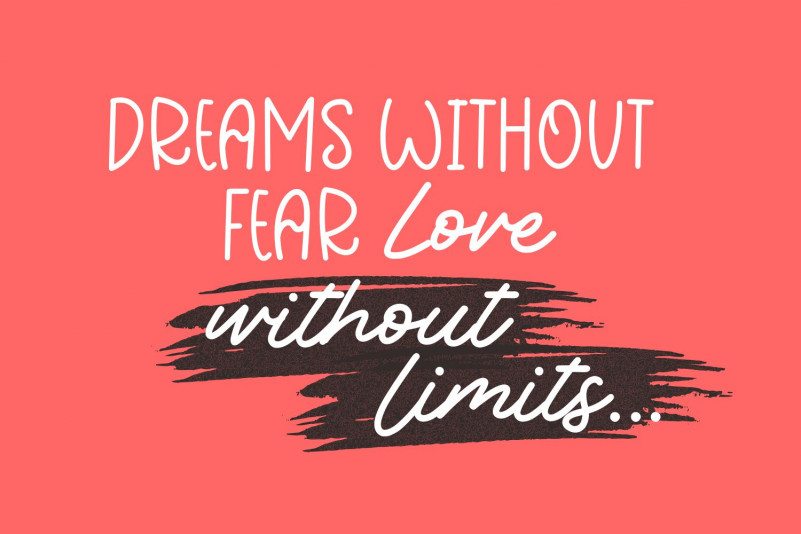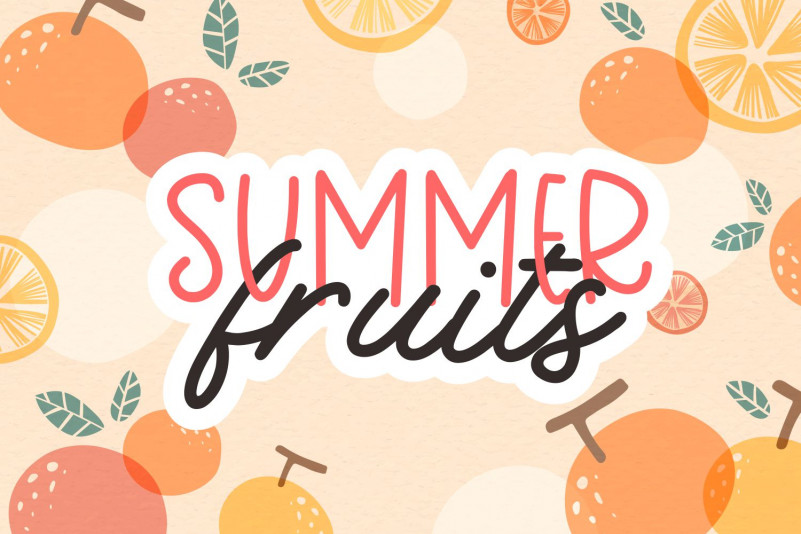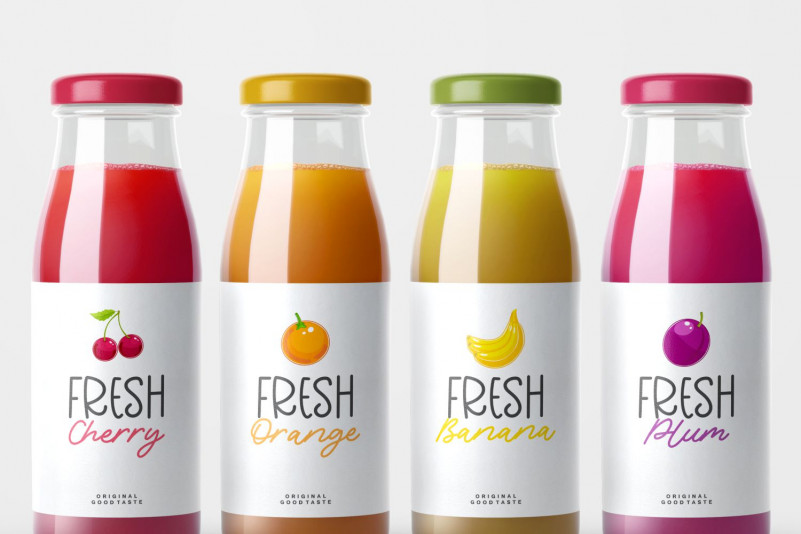
Millions Journey Font
Millions Journey Script Font
This is a gorgeous handwritten font that can impress with unique, slim characters. It is perfect for product packaging, branding projects, magazines, social media, weddings, or just used to express words above the background!